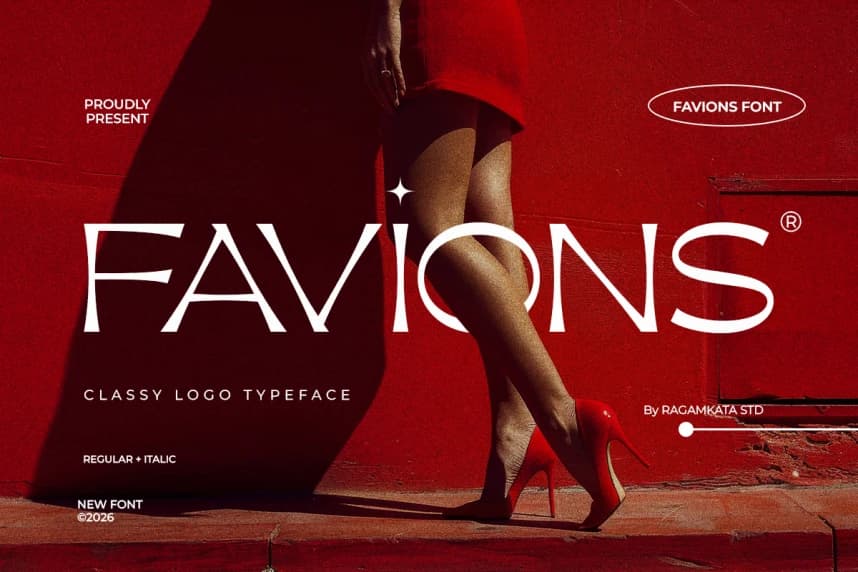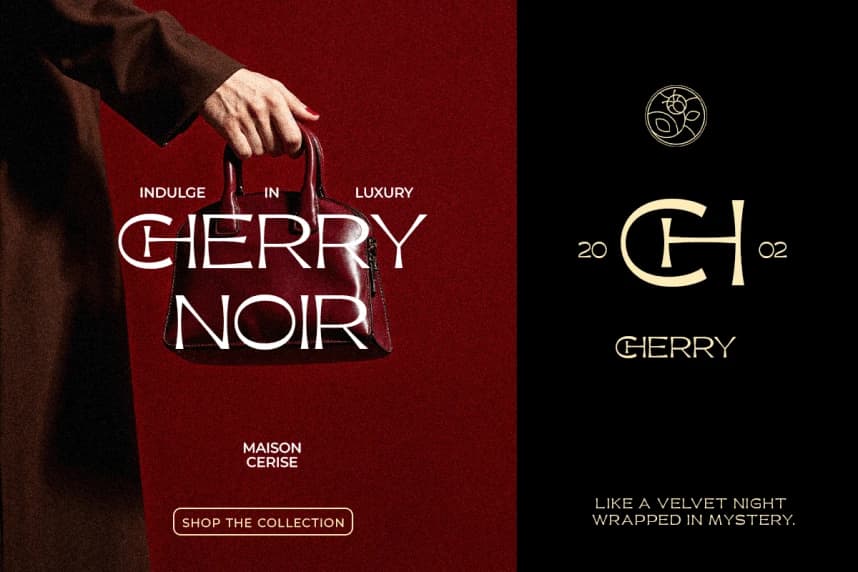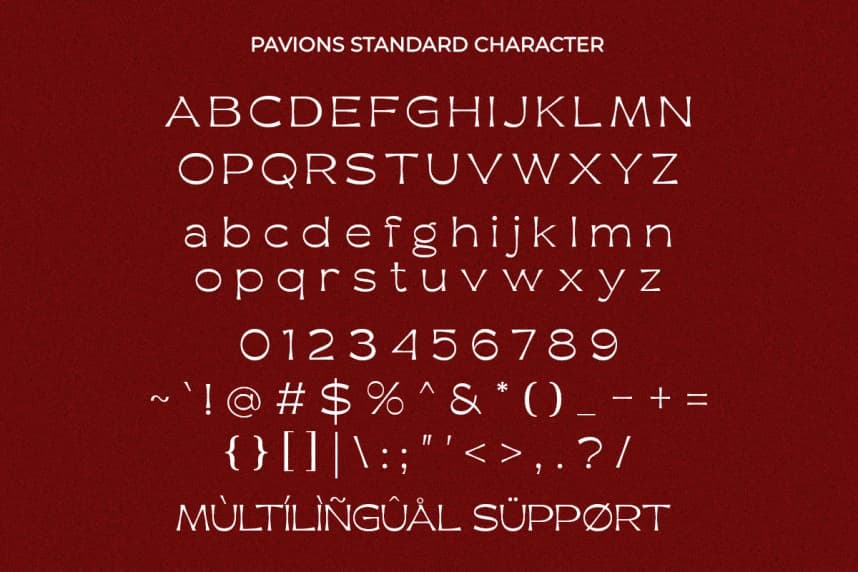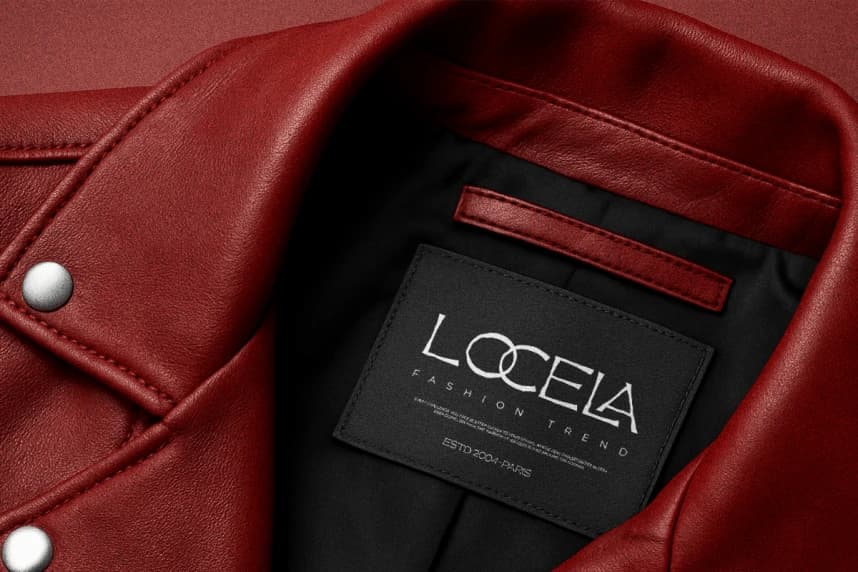
Favions Font
Favions Font is a classy logo typeface designed to elevate modern branding with a bold sense of elegance and confidence. Inspired by high-fashion aesthetics and luxury visual identity, this typeface delivers a refined balance between minimalism and sophistication.